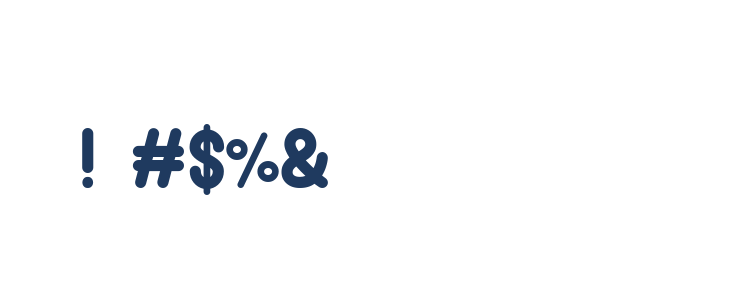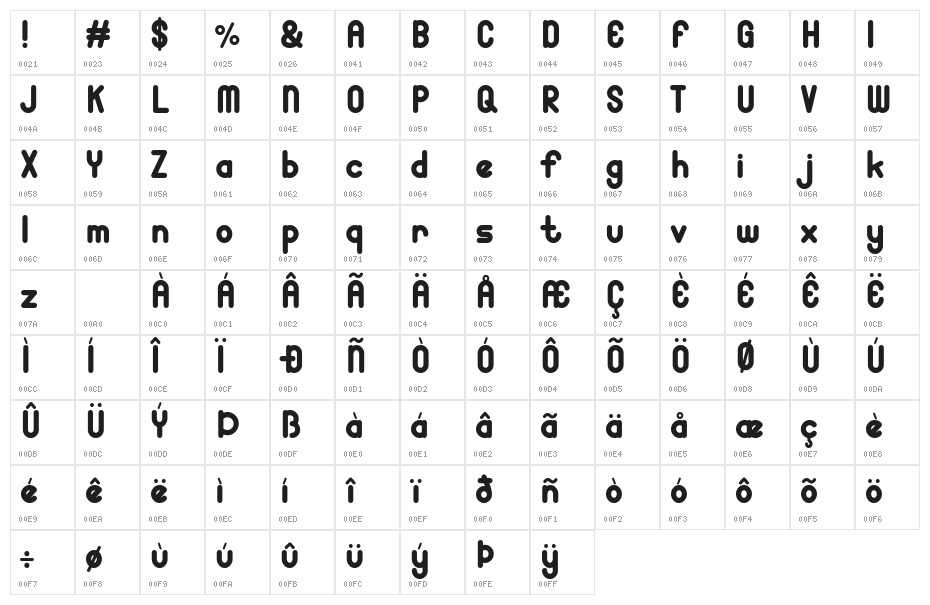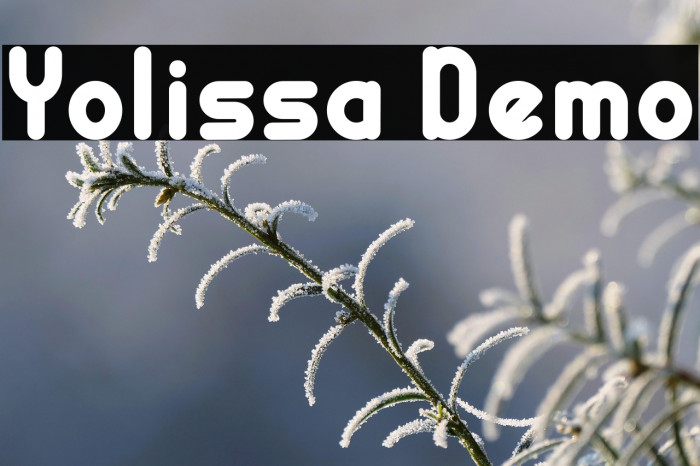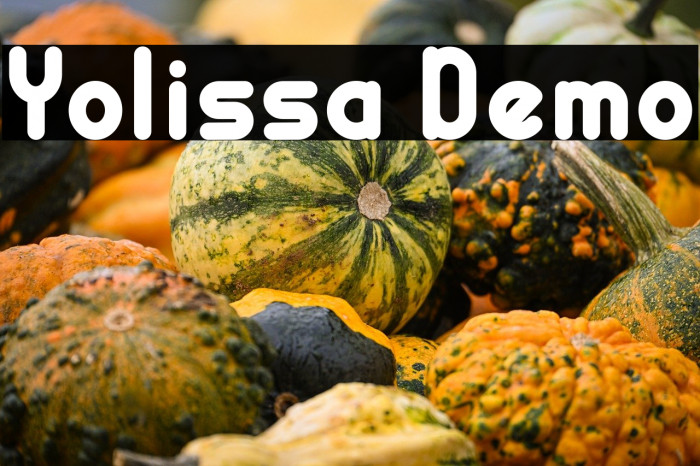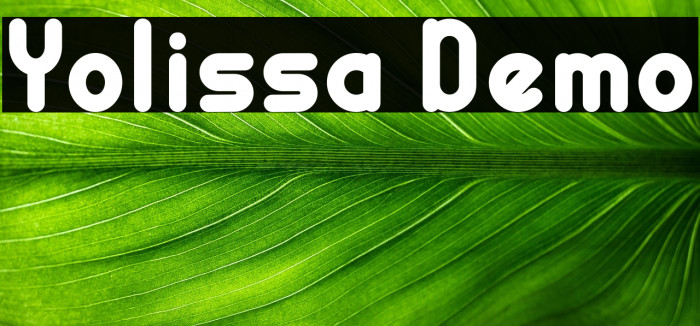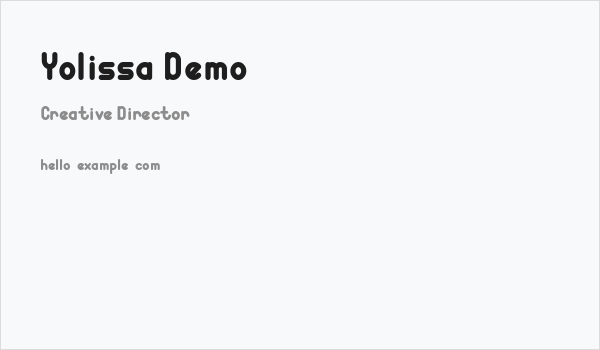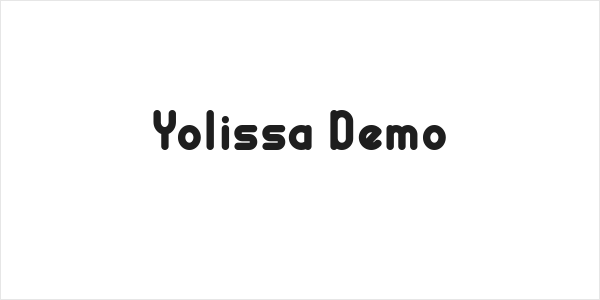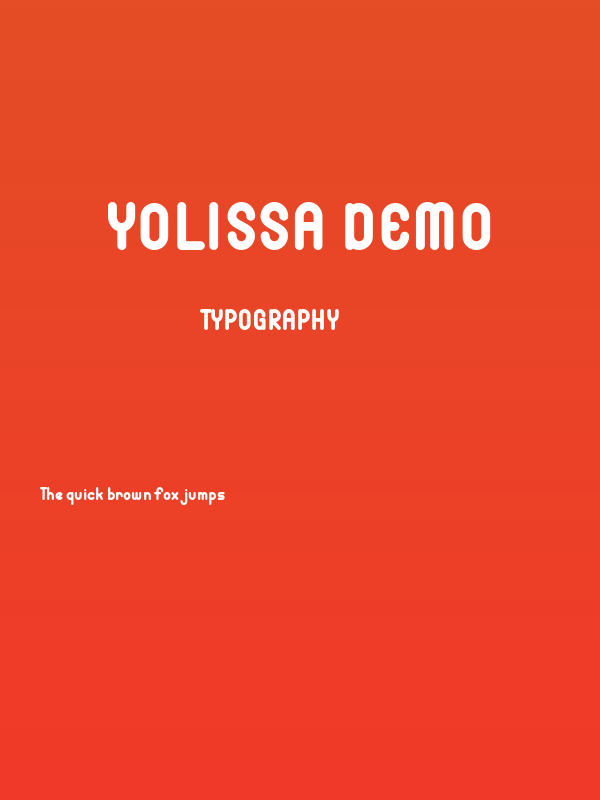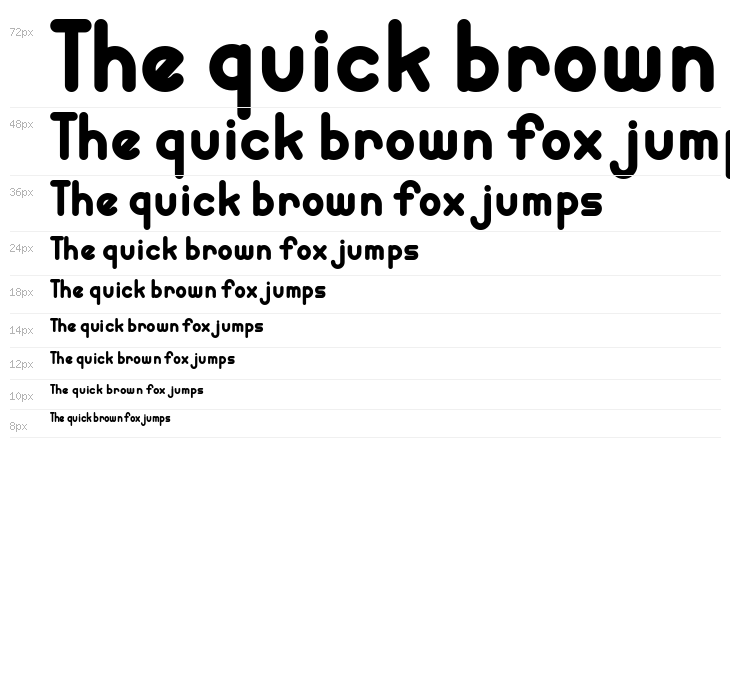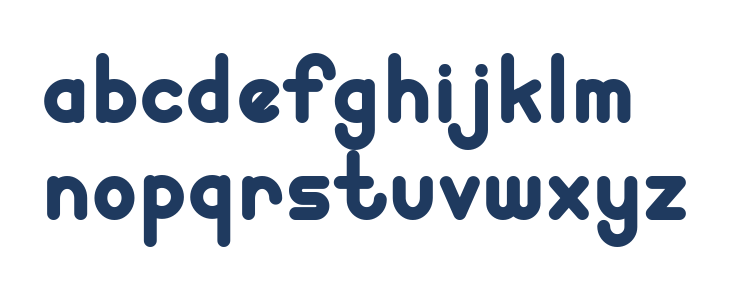
Yolissa Demo Font
Yolissa Demo Description
This font features a playful and rounded style, characterized by its bold and smooth curves. The letters are evenly spaced with a consistent stroke width, giving it a friendly and approachable appearance. The rounded edges and uniform thickness contribute to its modern and clean look, making it suitable for a variety of design applications. The font maintains a balance between readability and style, with each character distinctly formed to ensure clarity. Its unique design is both eye-catching and versatile, making it ideal for creative projects that require a touch of whimsy.
| Proposed Projects | Ideal for children's books, playful branding, posters, and social media graphics. |